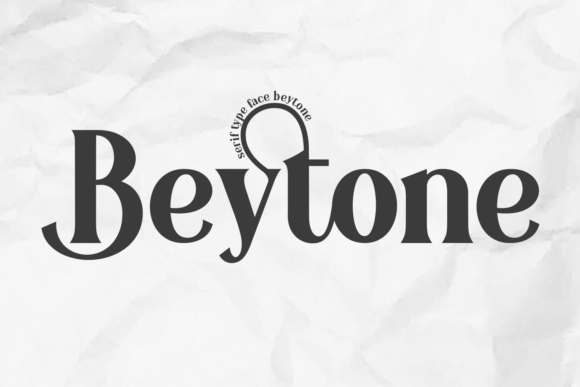
Unleashing the Elegance of the Beytone Font
As designers, we’ve all had those moments where a font just clicks – it’s the perfect blend of style and substance that elevates our work to the next level. For me, that moment came when I stumbled upon the Beytone Font. Its striking personality and classic elegance immediately caught my attention, and I knew I had to learn more.
The Beytone Font is a contemporary serif typeface designed to make a statement. With high contrast strokes, sharp serifs, and artistic ligature touches, it’s the perfect choice for luxury branding, editorial headlines, fashion magazines, and sophisticated logo designs. For designers, the Beytone Font offers a unique voice that’s both refined and daring, making it a valuable addition to any toolkit.
Beytone Font Key Features
- Unique Characteristics: Hand-drawn design elements and intricate details, giving it a distinctive and elegant appearance
Beytone Font Review
I recently had the chance to work with the Beytone Font, and overall, I found it to be a solid choice for many design projects. ✨ The font’s elegant, vintage vibe is perfect for creating a sophisticated atmosphere in magazines, advertising, and even some digital designs.
Here are some of the things that work well in the Beytone Font:
- ✨ Elegant, high-end feel
- ✨ Wide range of characters, including ligatures and swashes
- ✨ Supports both serif and sans-serif styles
- ✨ Works well in both print and digital formats
- ⚠️ Some characters may appear a bit too ornate or fussy for certain designs
- ⚠️ Limited language support, which may be a concern for international projects
- ⚠️ Some users may find the font’s vintage aesthetic to be too dated or nostalgic
Overall, I’d say the Beytone Font is a great choice for designers looking to add a touch of sophistication and elegance to their projects. While it may not be the best fit for every design, it’s definitely worth considering for projects that require a high-end feel.
Tips for Getting the Most Out of Beytone Font
Here are some tips to help you get the most out of Beytone Font:
- Use it for titles and headings to add a touch of elegance and sophistication.
- Combine it with bold and italic styles to create visually appealing contrasts.
- Experiment with different font sizes and colors to create unique visual effects.
Beytone Font is commonly used for:
- Personal projects and creative portfolios.
Alternatives to Beytone Font
Playfair Display is an elegant serif font that is ideal for headings and titles. It is often used in high-end designs and publications. When to use: headings, titles, luxury branding.
Comparison to Beytone Font: Playfair Display is more formal and sophisticated, with a more dramatic flair. It is better suited for high-end designs, while Beytone Font is more versatile and suitable for a wide range of applications.
Great Vibes is a beautiful script font that is perfect for adding a touch of elegance and sophistication to designs. It is often used in invitations, wedding designs, and luxury branding. When to use: invitations, wedding designs, luxury branding.
Comparison to Beytone Font: Great Vibes is more cursive and flowing, with a more organic feel. It is better suited for designs that require a touch of elegance and sophistication, while Beytone Font is more versatile and suitable for a wide range of applications.
Pacifico is a beautiful script font that is perfect for adding a touch of elegance and sophistication to designs. It is often used in beach-themed designs, travel branding, and luxury packaging. When to use: beach-themed designs, travel branding, luxury packaging.
Comparison to Beytone Font: Pacifico is more cursive and flowing, with a more relaxed feel. It is better suited for designs that require a touch of elegance and sophistication, while Beytone Font is more versatile and suitable for a wide range of applications.